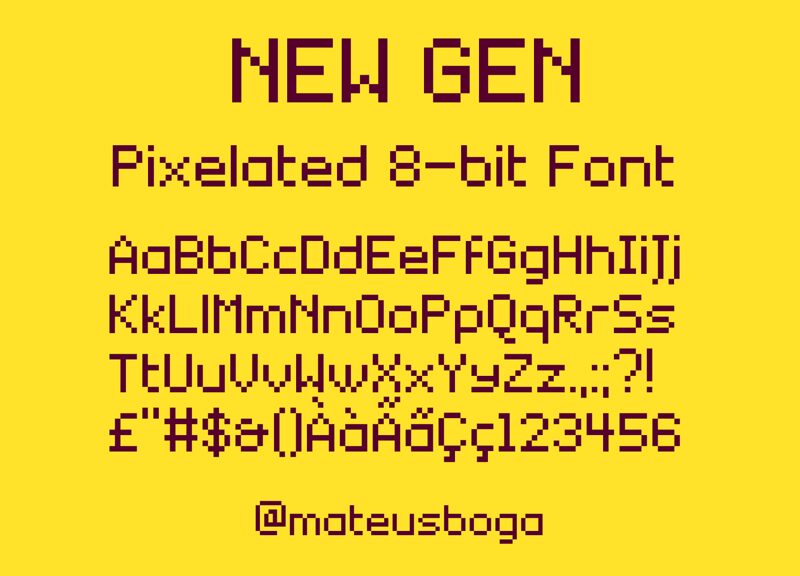
New Gen is a bitmap font inspired by classic videogame fonts (ex. NES) and sans-serif fonts like Century Gothic.
This font supports the latin, cyrillic, greek, hebrew and georgian alphabets.
New Gen
New Gen was built with FontStruct Designer description: <p>A simple pixel font for all your pixelated needs!</p>